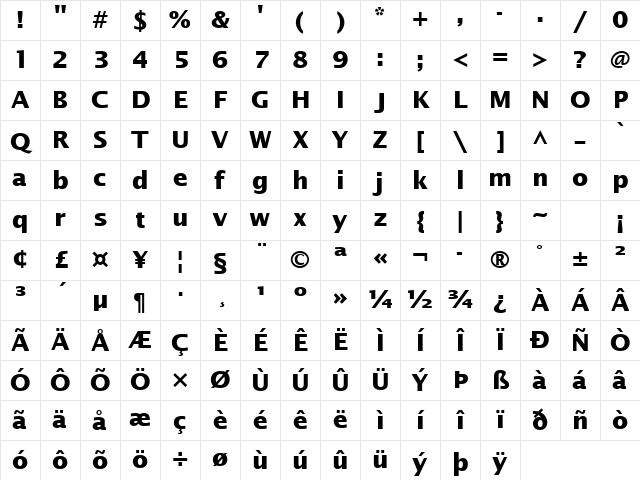
Lucida Becker Sans Bold Free Font
Lucida Becker Sans Bold
Design Context for Lucida Becker Sans
Lucida Becker Sans is a composed and adaptable typeface that performs quietly and consistently across a wide range of design contexts. Its bold stroke weight gives it real presence on the page.